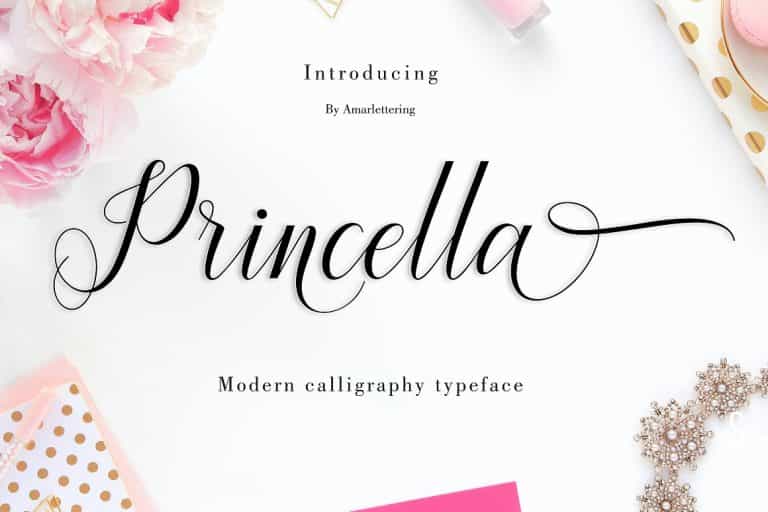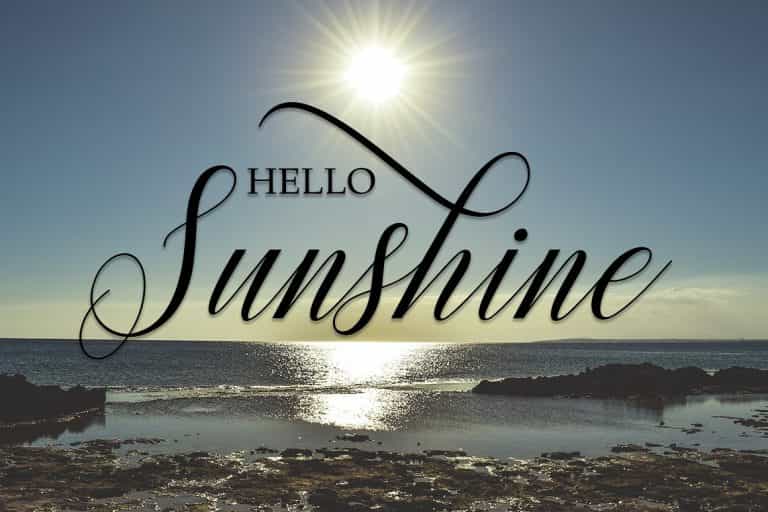
Discover Princella Script Font, part of the Calligraphy collection—a versatile and unique font perfect for adding a personal touch to your projects. Download it for free and enjoy crafting designs with style, from invitations to social media posts. This font is available exclusively for personal use, giving you the freedom to create without limits. Unlock your creativity with Princella Script Font today!
At present, we are glad to introduce you a font that is perfect for any design purpose. Introducing Princella Font. It is a font created by Amarlettering. Princella is a brand new fresh and modern script with a handmade calligraphy style, decorative characters and a dancing baseline!